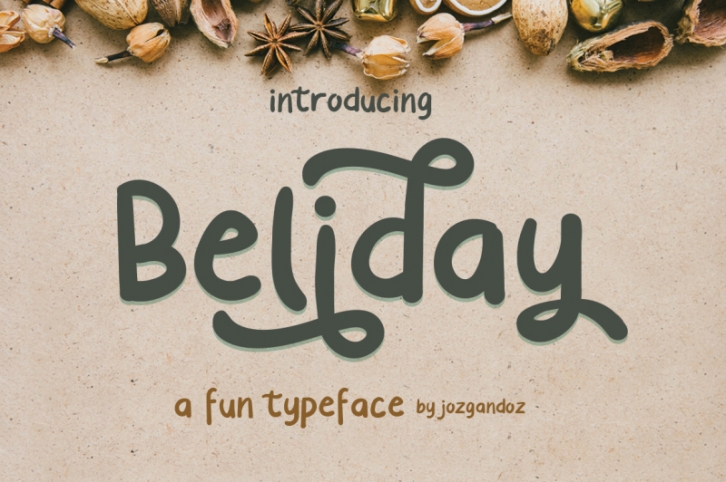
Beliday-Fun Display Font Download
Beliday is a simple, fun and cute font for beautiful design. Beliday is great for branding design, invitation designs, logo, product display, product packaging  or simply quote and design with stylish text overlay to any background image.
Includes :
- uppercase & lowercase letters - numbers & punctuation - some alternate glyph - multi language support